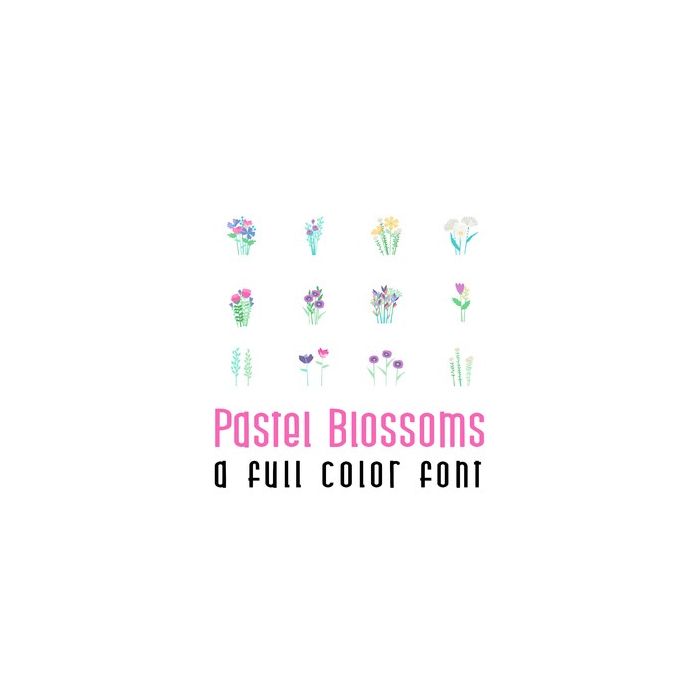
This adorable full-color doodlebat font features 30 beautiful blossom bouquests perfect for Spring and Mother's Day. Perfect for cards, crafts, gifts, decor, scrapbook pages, planner stickers, and more! Glyphs are A-Z and 0-3 for 30 total glyphs.